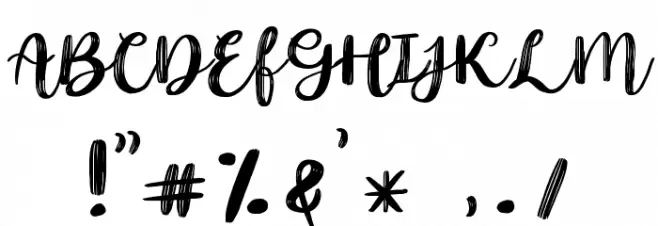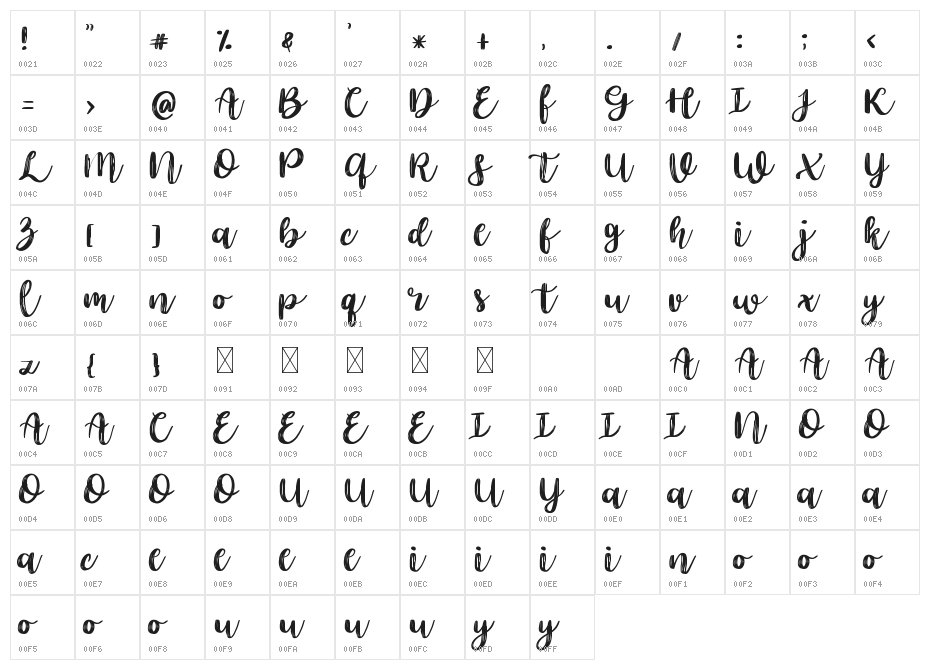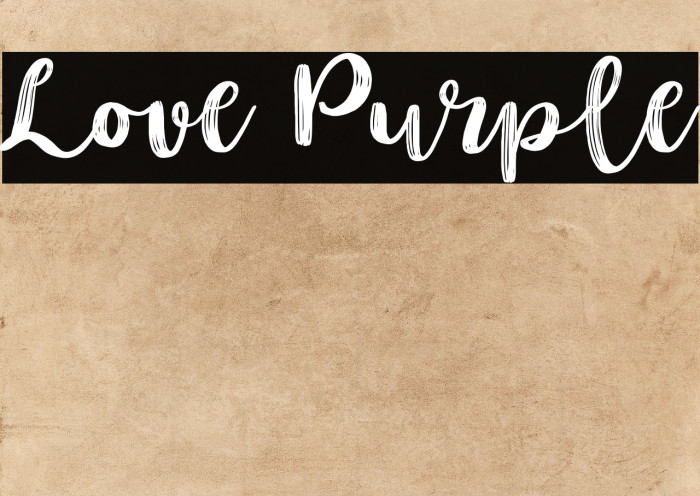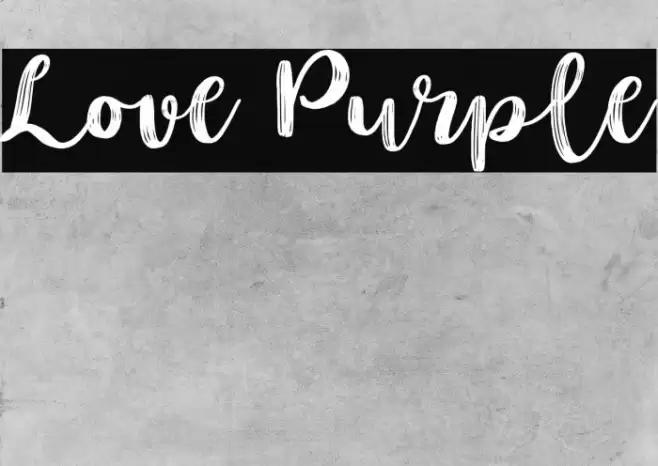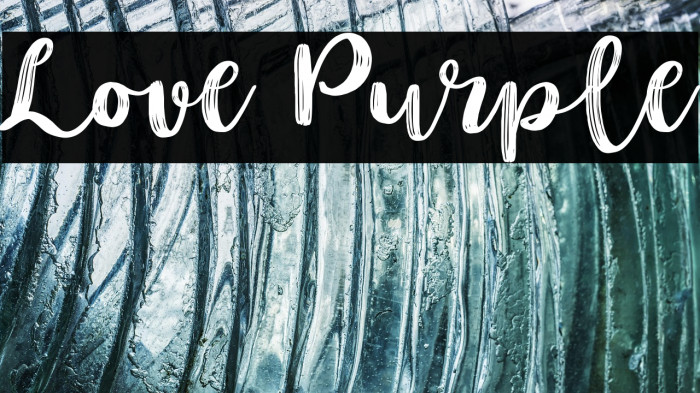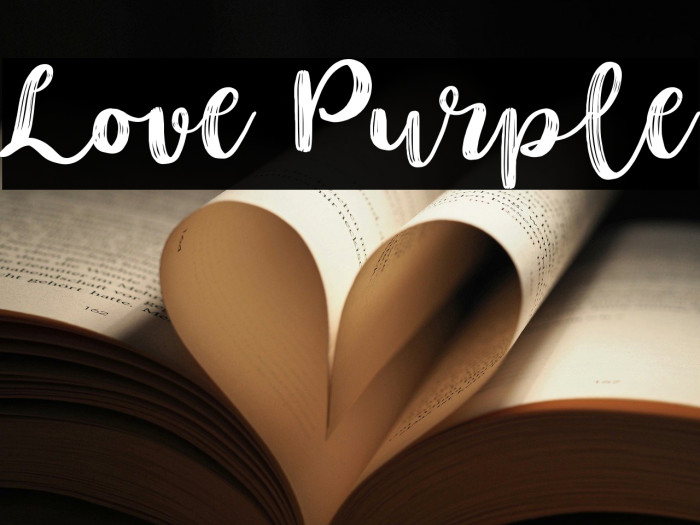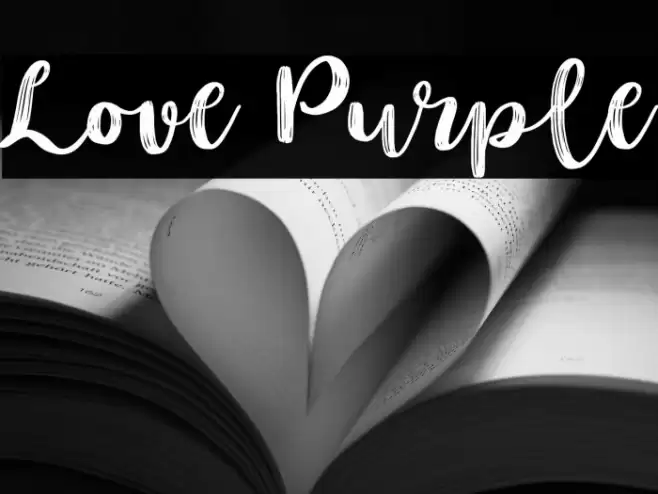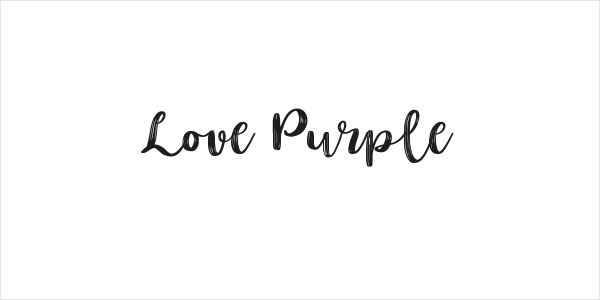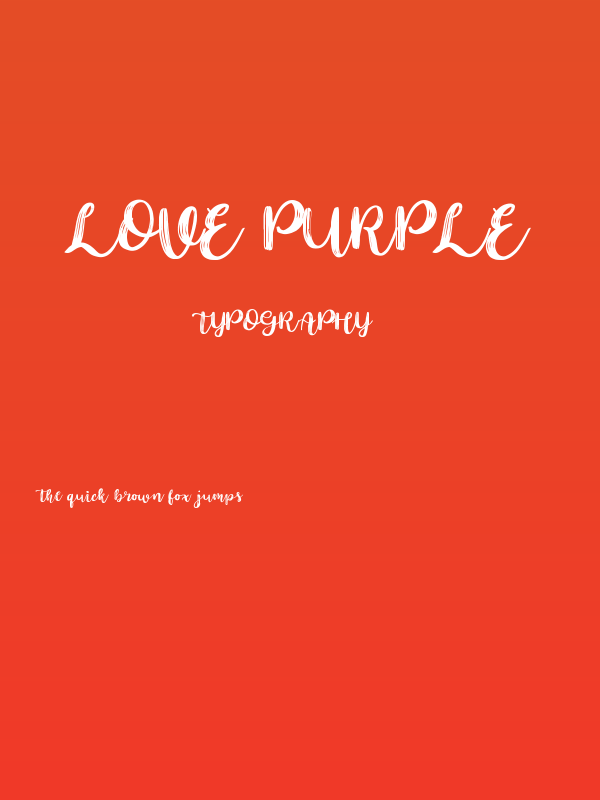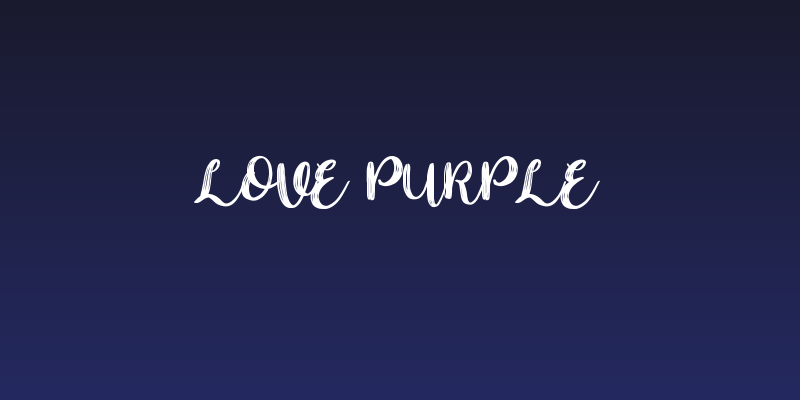
Love Purple Font
Love Purple Description
This font features a lively and expressive handwritten style, characterized by its fluid and dynamic strokes. The letters are interconnected, giving it a cursive appearance that is both playful and elegant. The uppercase and lowercase letters maintain a consistent flow, with a slight slant that adds to its casual charm. The strokes vary in thickness, providing a medium contrast that enhances readability while maintaining an artistic flair. The special characters complement the overall style, making it suitable for creative and informal applications.
| Use Case | Logos, Invitations, Creative projects |
| Proposed Projects | Ideal for wedding invitations, greeting cards, personal branding, and creative projects that require a personal touch. |